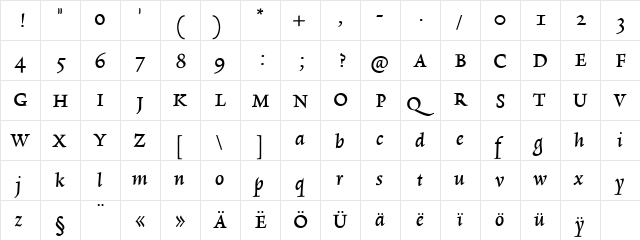
RialtoDF Bold Italic
Design Context for RialtoDF Typeface
RialtoDF is a composed and adaptable typeface that performs quietly and consistently across a wide range of design contexts. The dynamic lean of this cut emphasises speed and emphasis in any layout. Its bold stroke weight gives it real presence on the page.